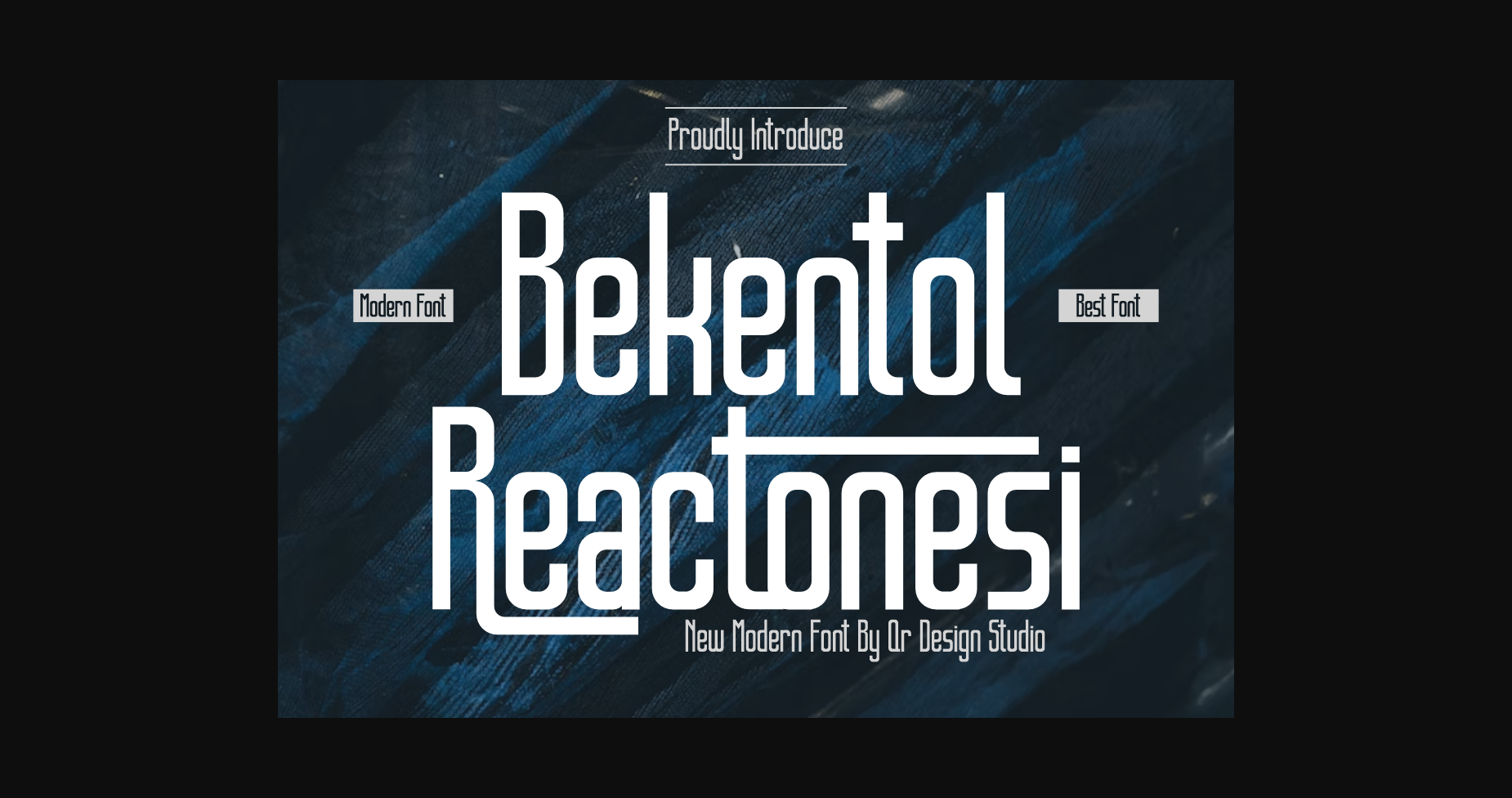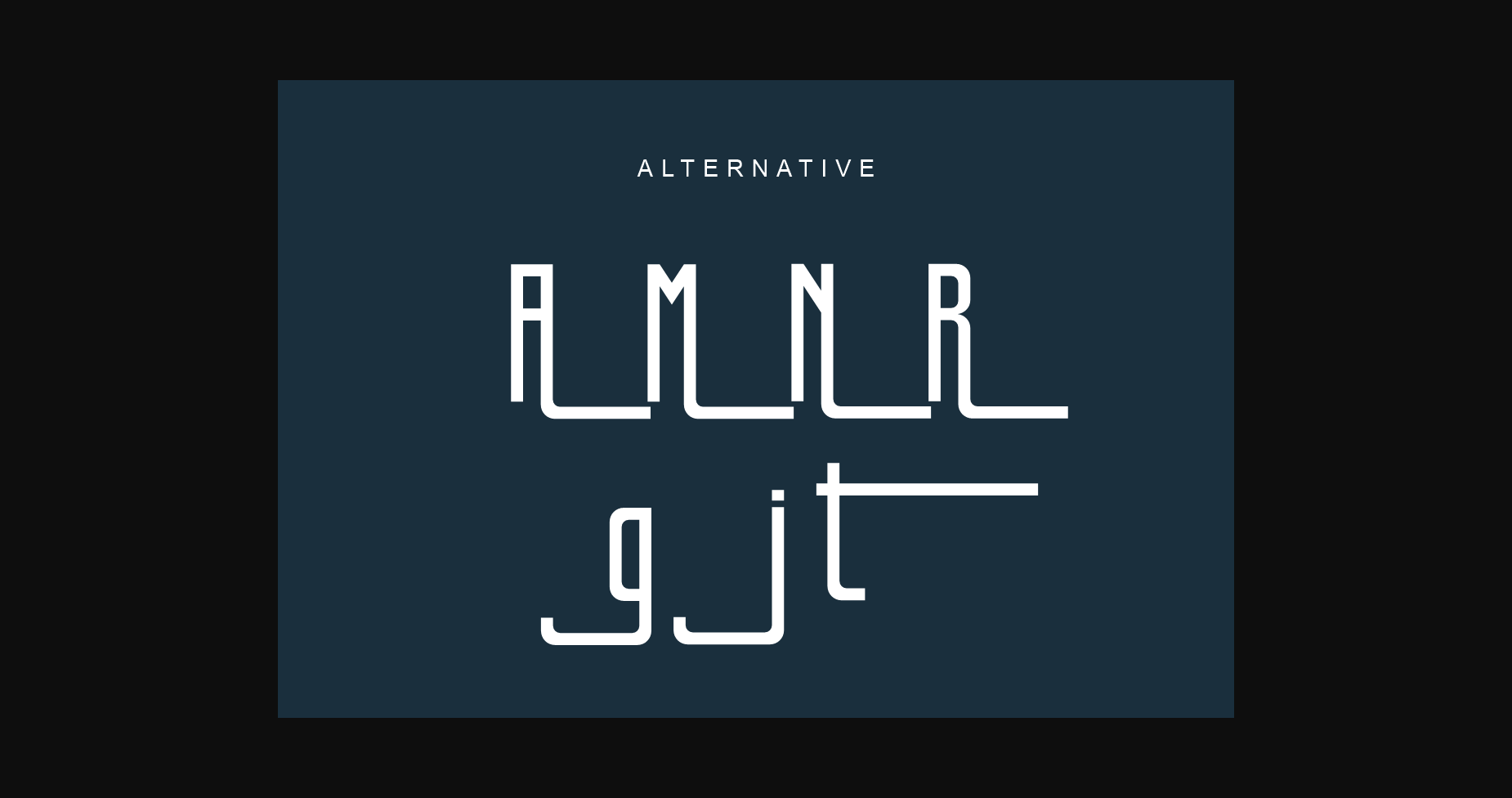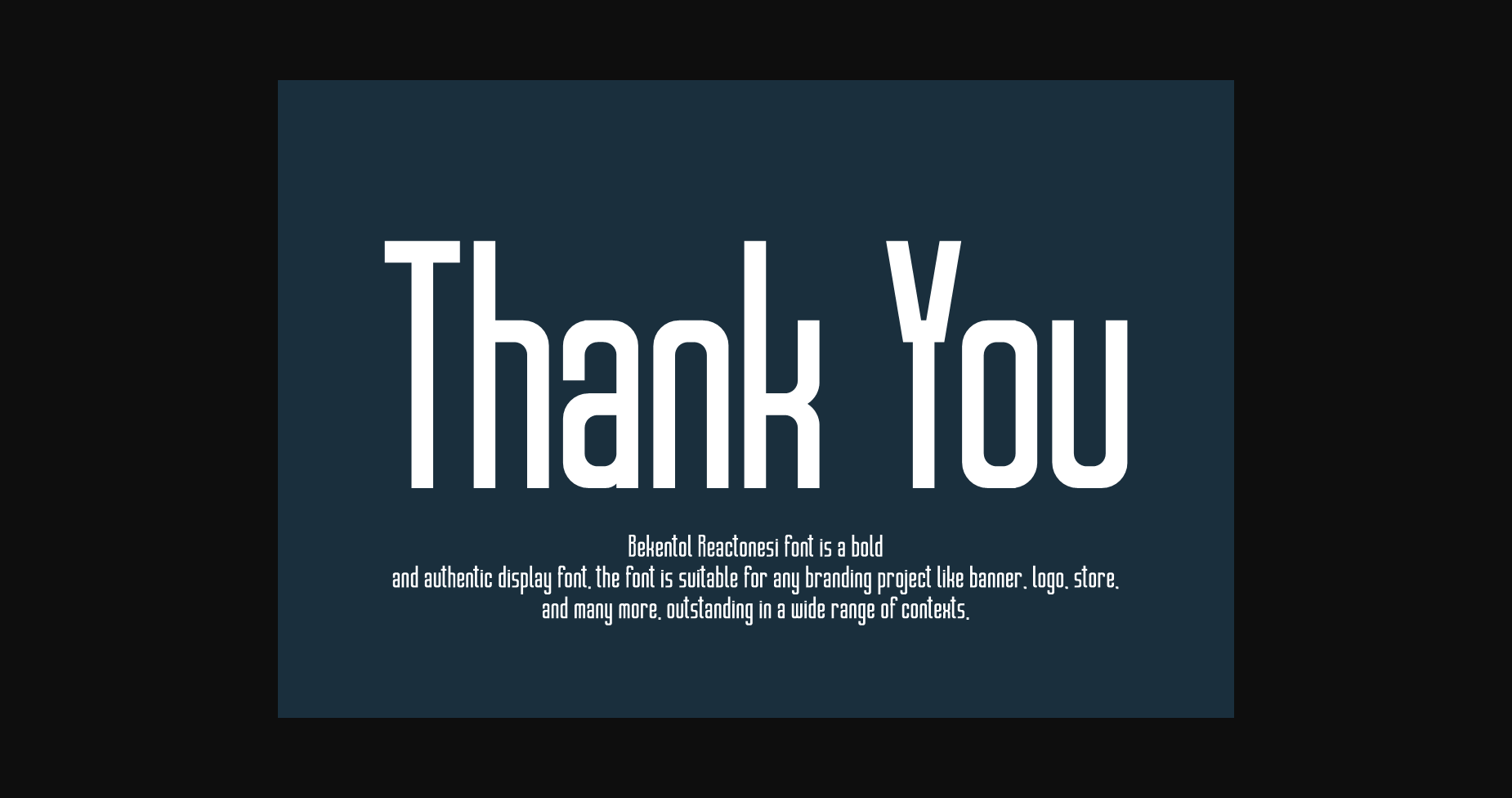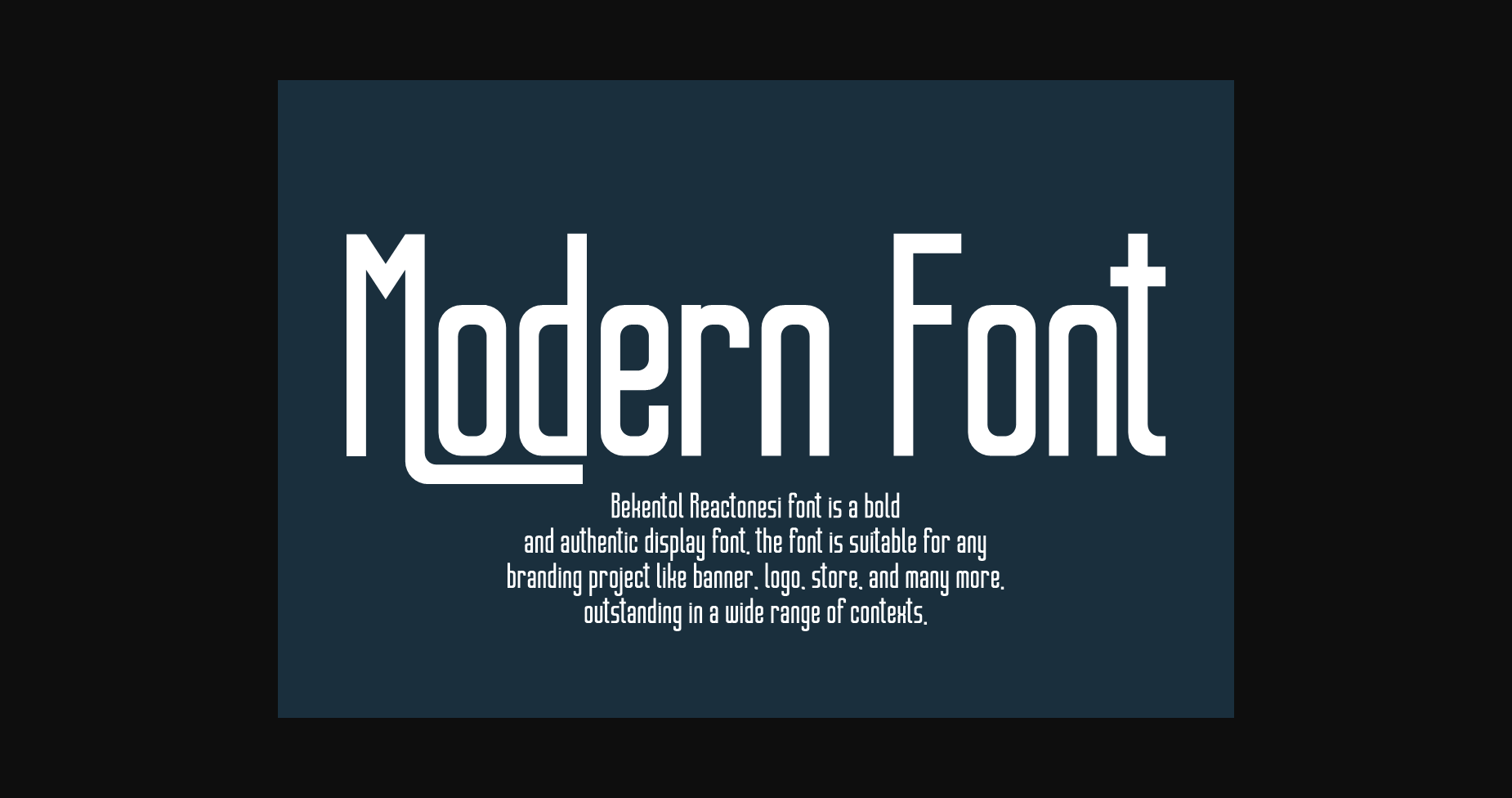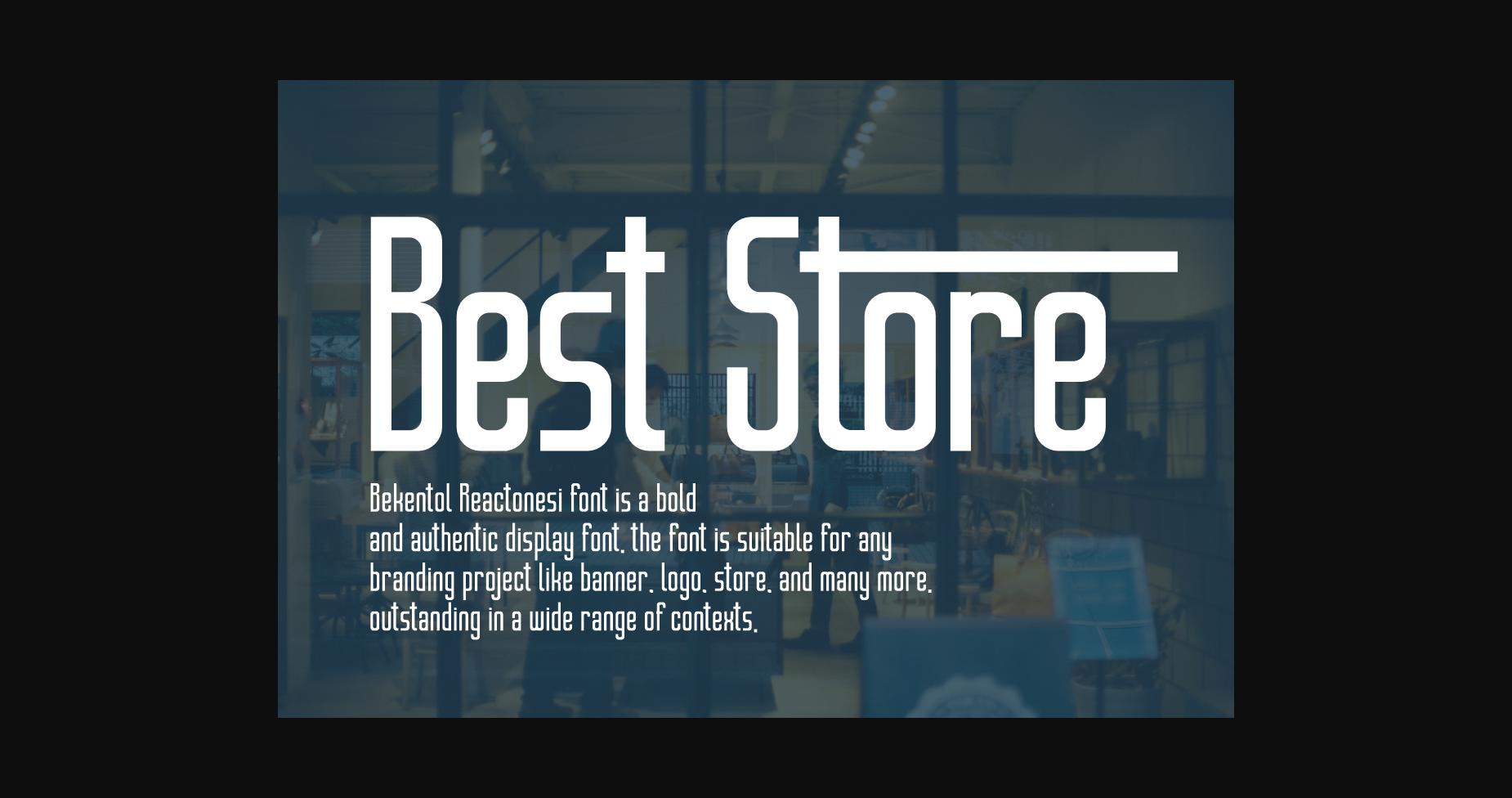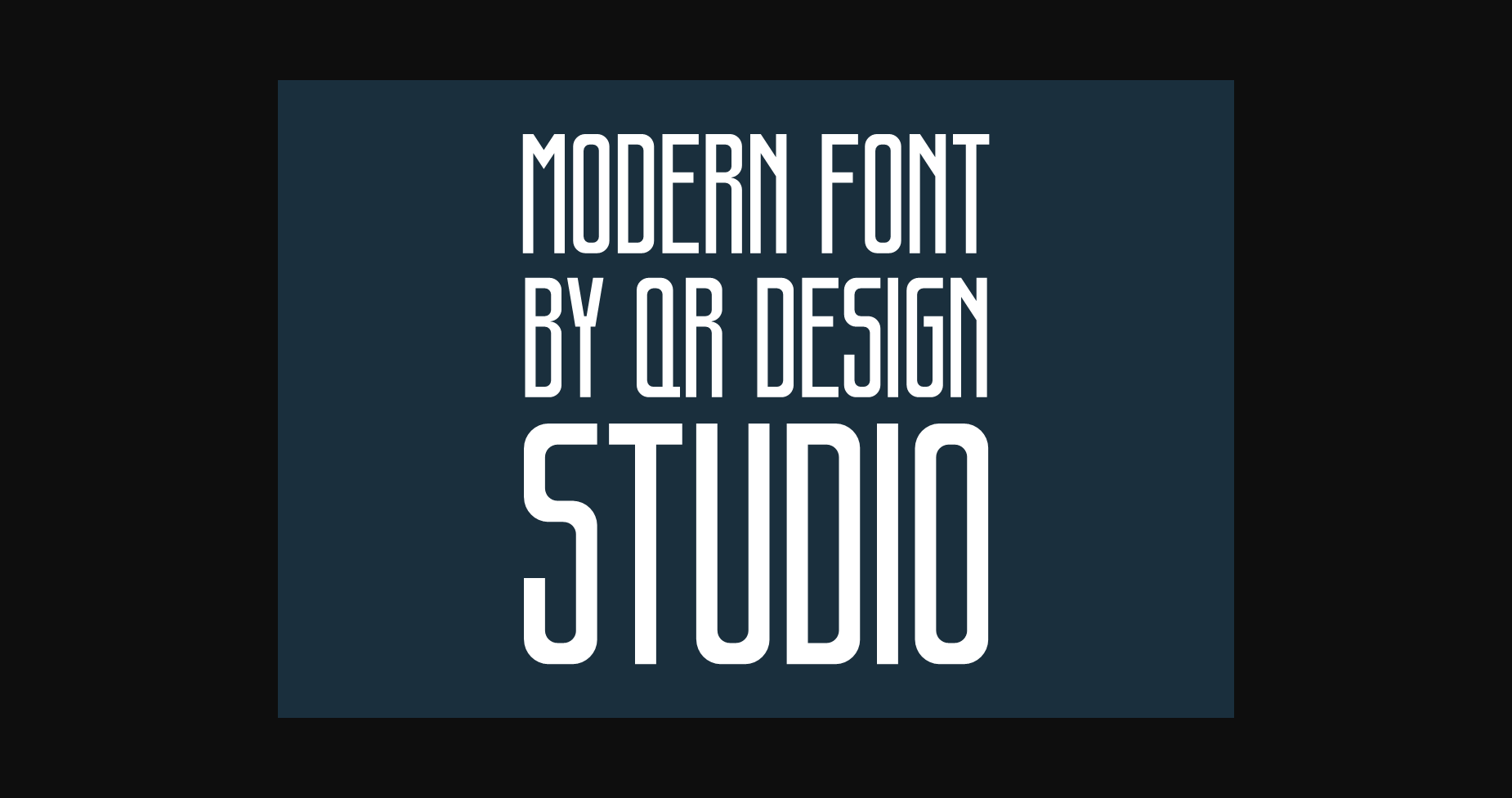
Bekentol Reactonesi Font
About Bekentol Reactonesi Font
Bekentol Reactonesi is a cool and modern sans serif font. Add it confidently to your projects and you will love the results!